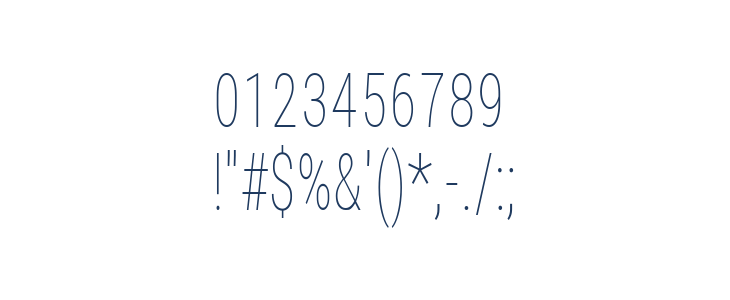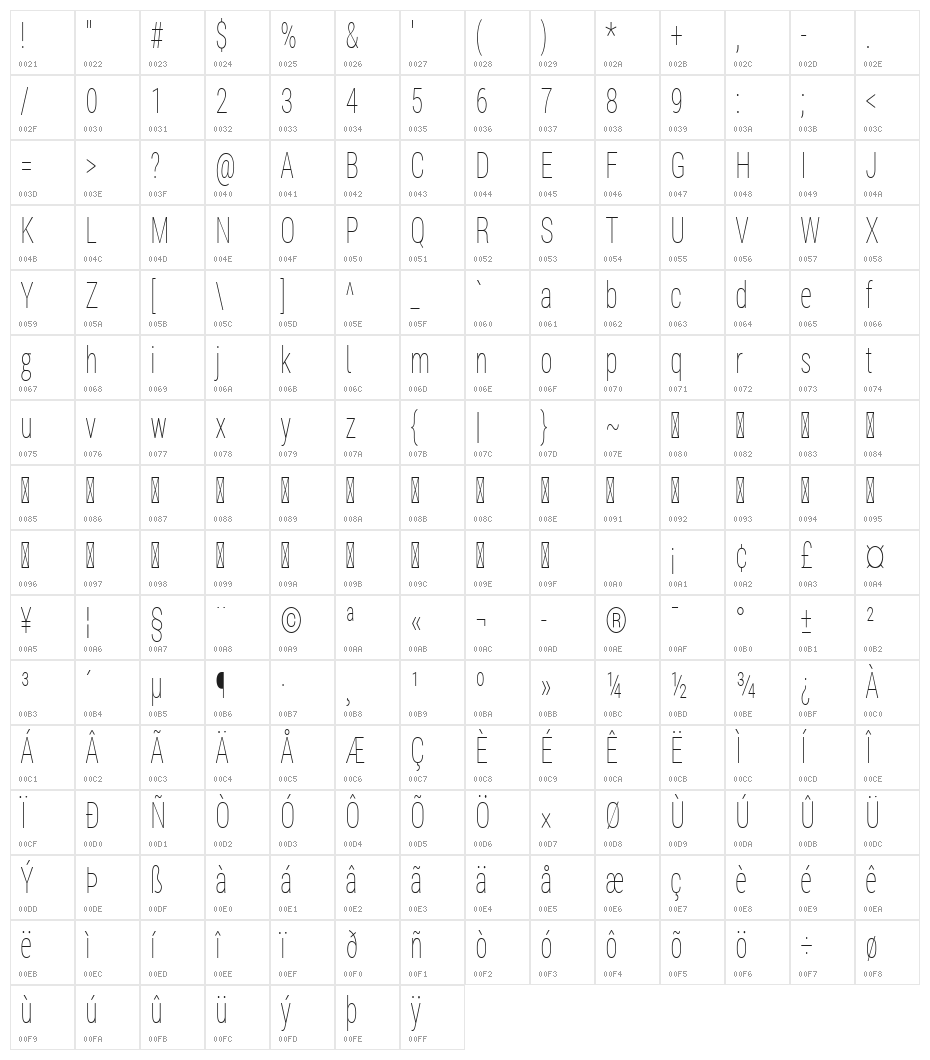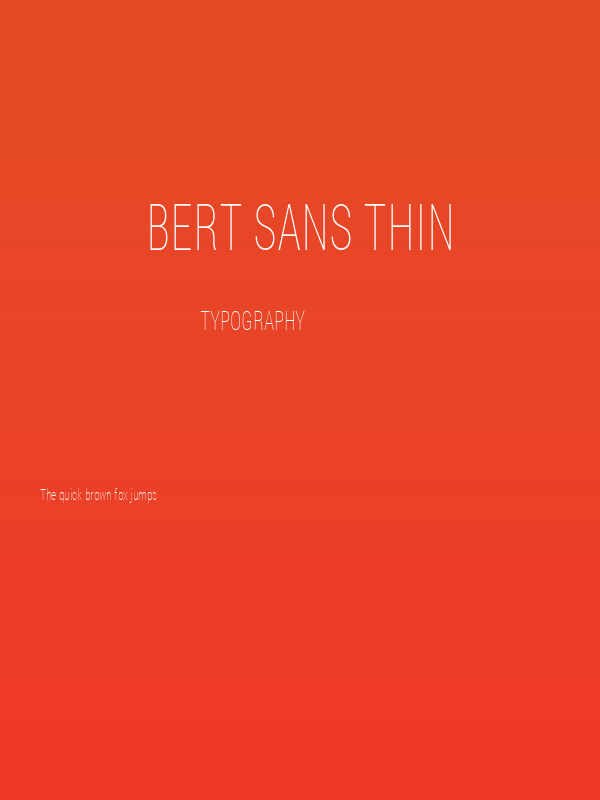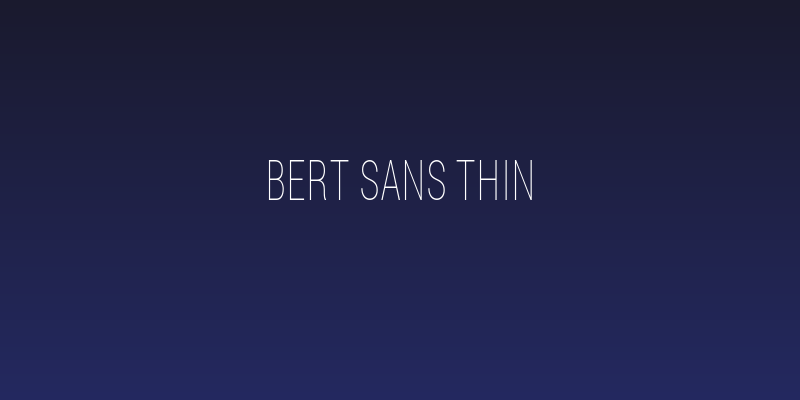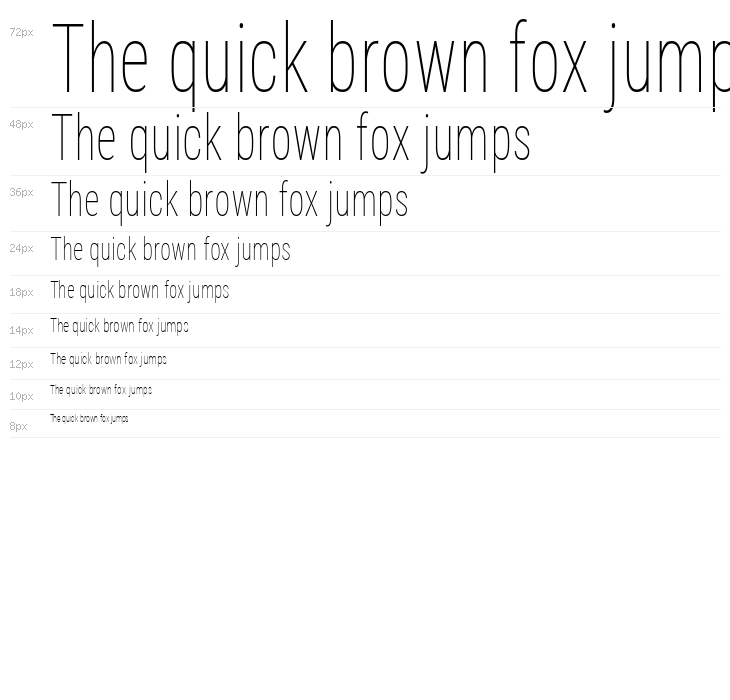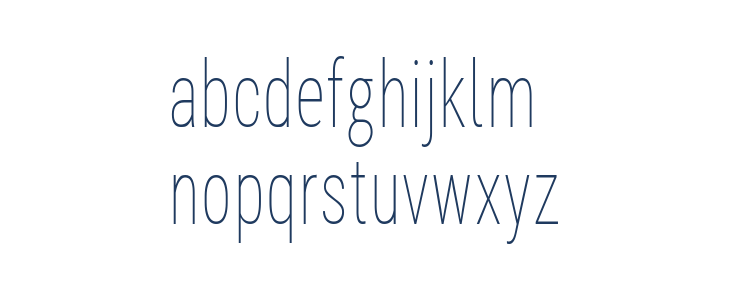
Bert Sans Thin Font
Bert Sans Thin Description
This font features a clean and modern sans-serif design with a thin and elegant appearance. Its characters are uniformly structured, offering a sleek and minimalist aesthetic. The uppercase and lowercase letters maintain a consistent height and width, contributing to its balanced look. The numerals are straightforward and align well with the overall style. Special characters are included, providing versatility for various applications. The thin strokes give it a refined and sophisticated feel, making it suitable for contemporary design projects.